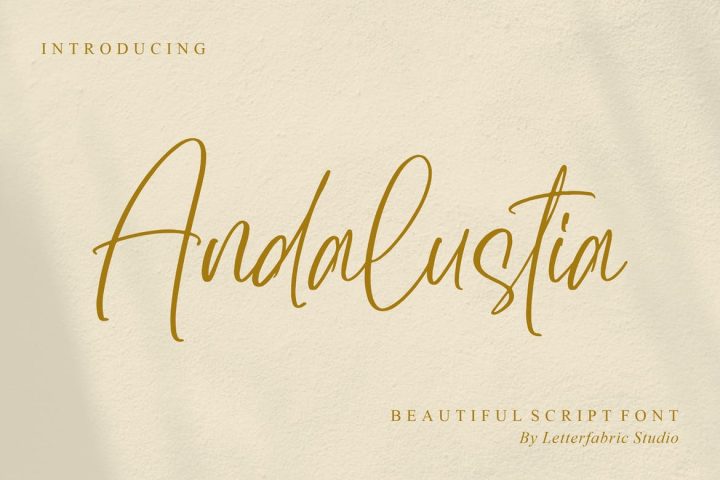
Andalustia Script Font
Hi ladies & gentlemen, this is one of our fonts suitable to complement your digital and printed creative products. This font is perfect for posters, social media posts, branding, personal projects, etc.